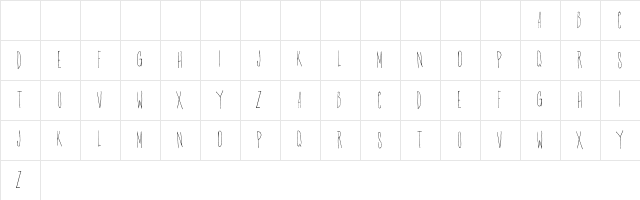
Gascoigne Font Regular
Design Context for Gascoigne Font Typeface
Gascoigne Font is a composed and adaptable typeface that performs quietly and consistently across a wide range of design contexts.